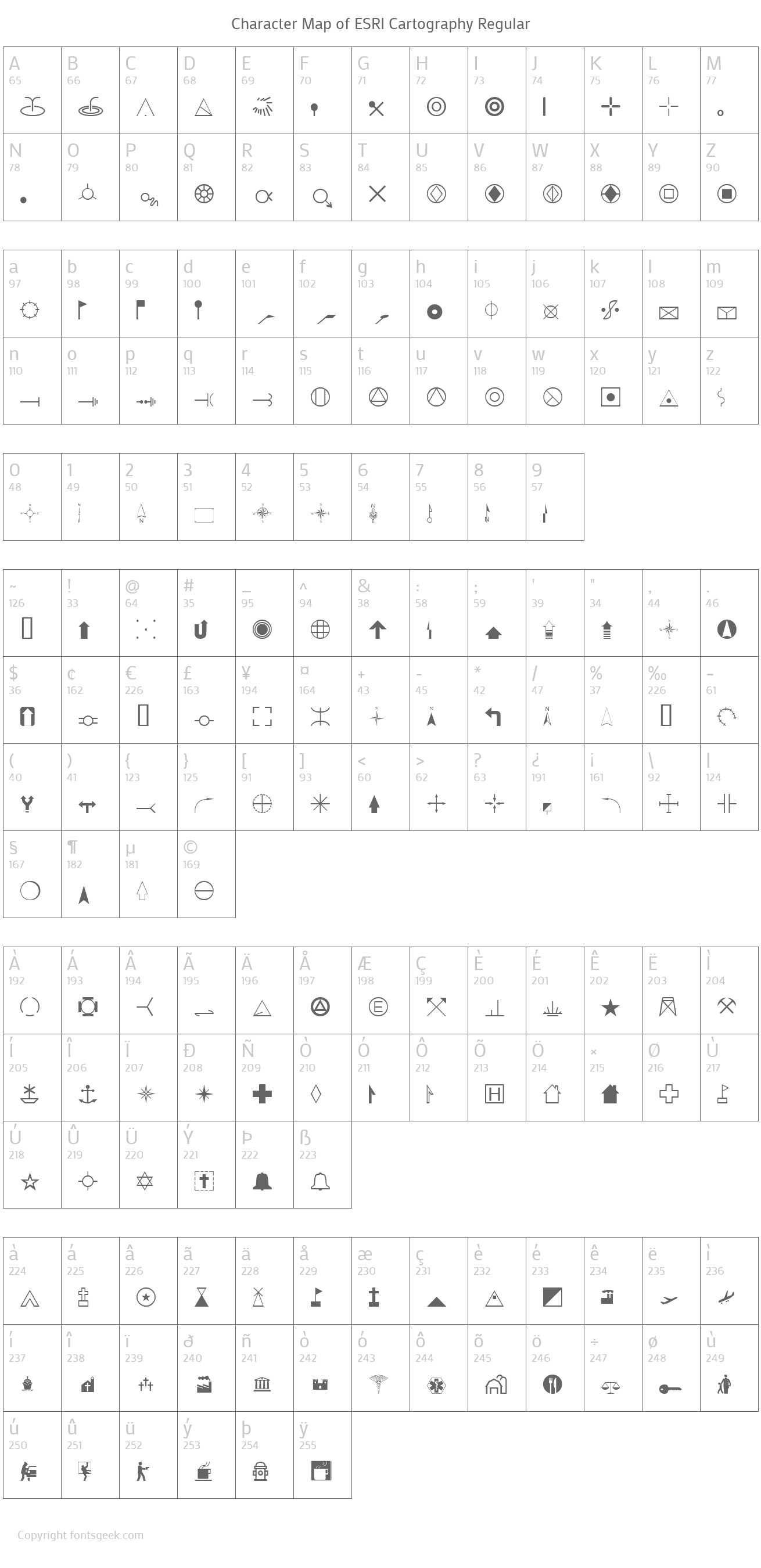
Review Of Cartography Fonts Ideas
Review Of Cartography Fonts Ideas. Road map, site map, area map, usgs topography maps,. Siyu cao lakeside, released in may 2013, is a font inspired by topographical maps.
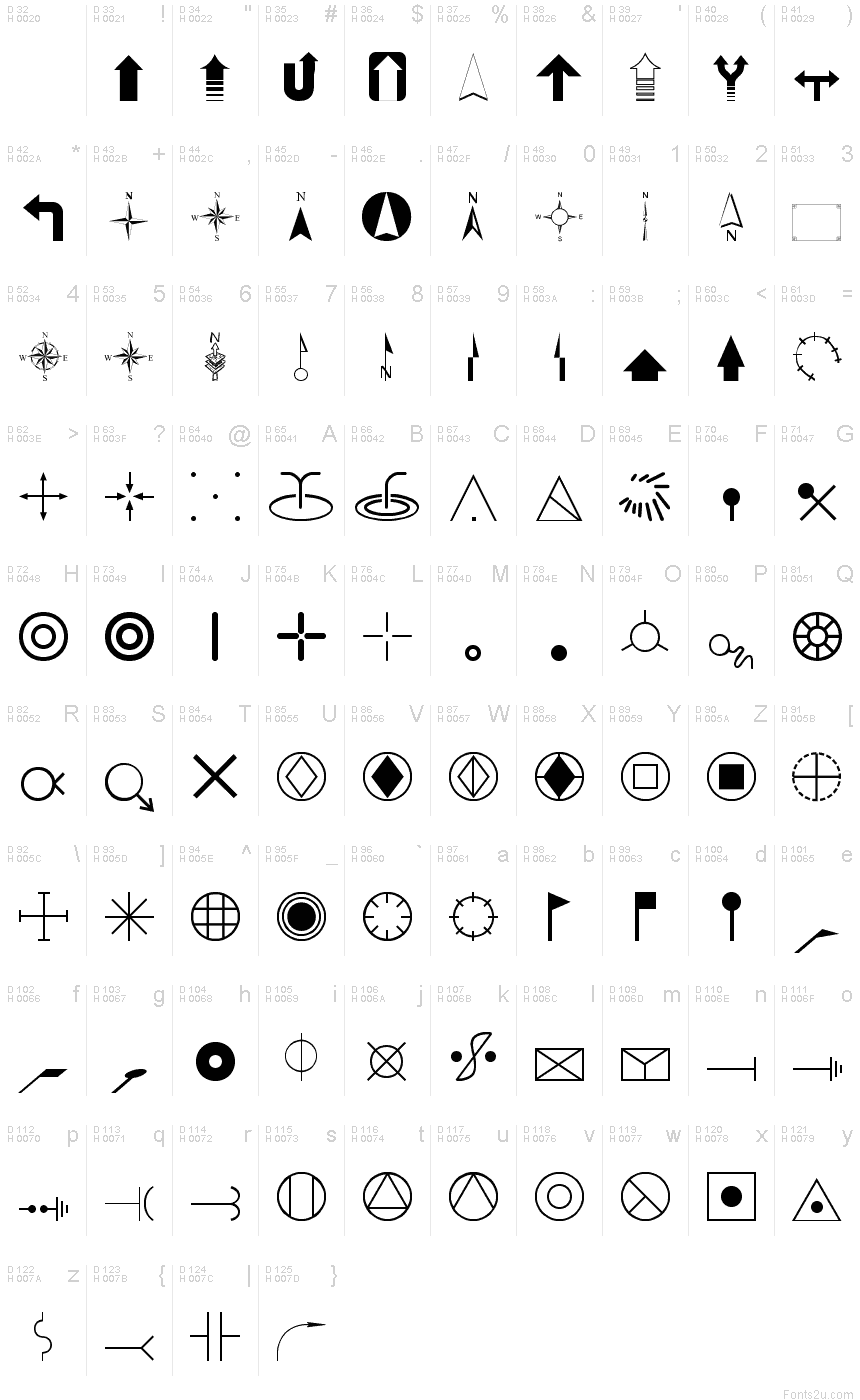
A Hard Question To Answer Quickly.
In part it depends on the map. Cartography fonts | myfonts item added to your cart continue shopping browse fonts by category Choice of typeface (font) in a map is as relevant as questioning whether to use hachures or a polygon fill, or improving visualization of overlapping polygons (see related.
The Brainchild Of Siyu Cao, Lakeside “Is A Typeface Inspired By Natural Forms And Topography.
Siyu Cao Lakeside, Released In May 2013, Is A Font Inspired By Topographical Maps.